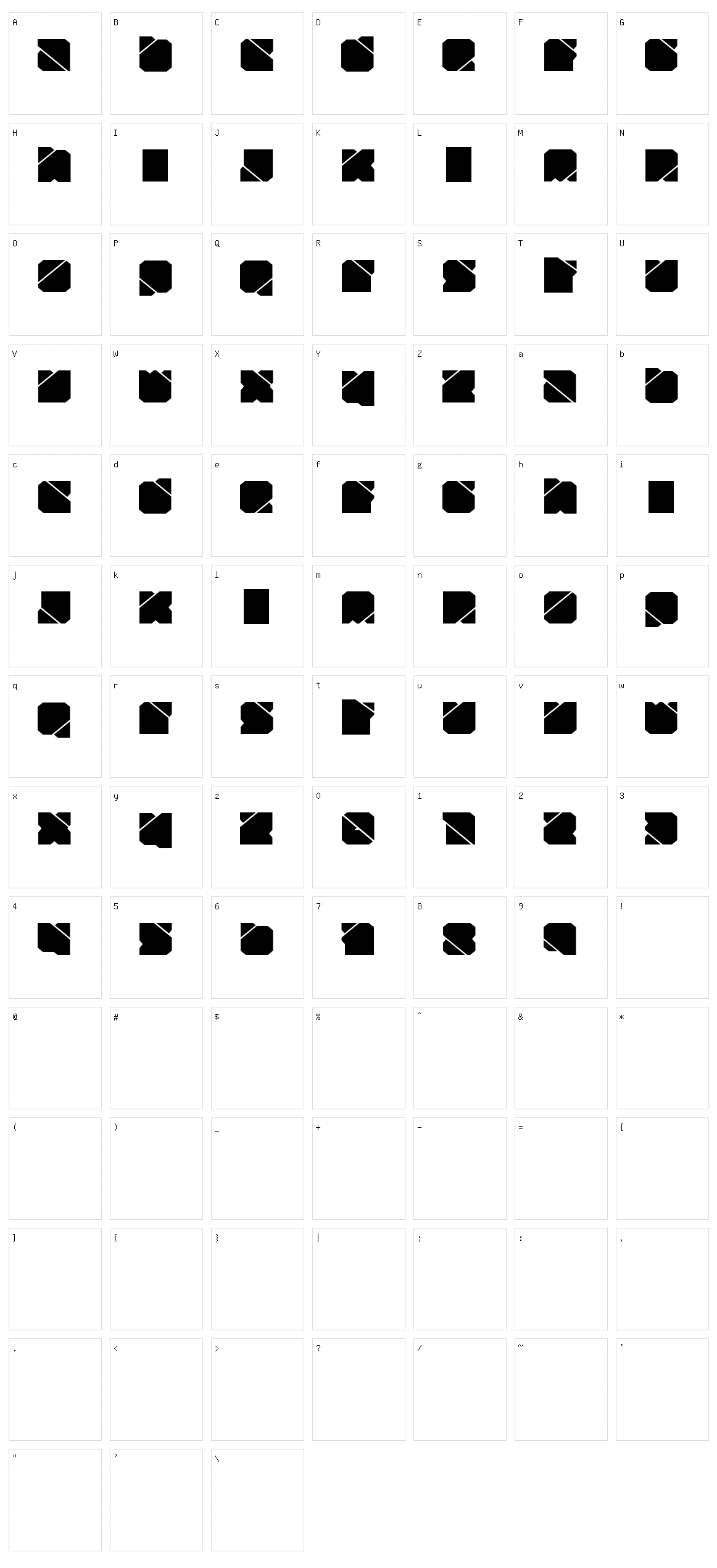
The free font Zuber Tech is carefully designed by Qbotype Fonts, showcasing a thoughtful balance of creativity and usability and falls under the Square font style. When you download the ZIP file, it contains only 5.75 KB of font files, making it lightweight and quick to download. Please review the license details below to understand permitted usage and distribution rights. If license information is not available, we recommend using this font for personal projects only or contacting the author directly for commercial usage permissions.